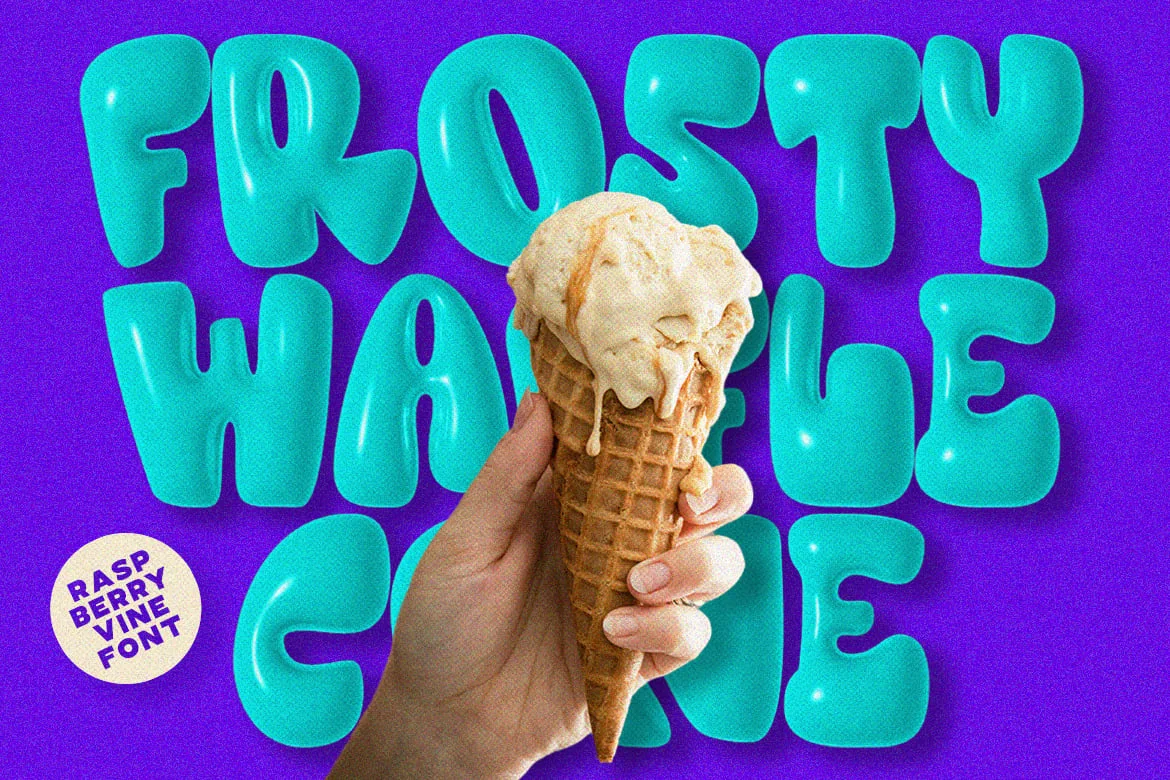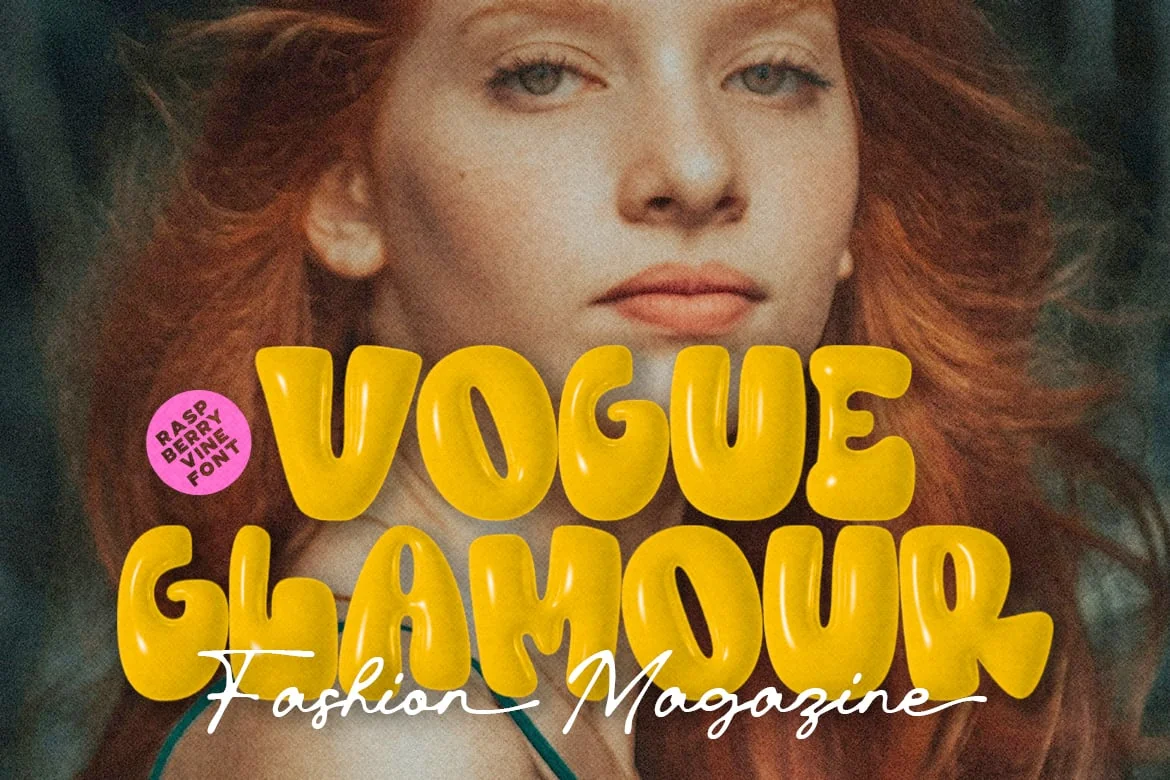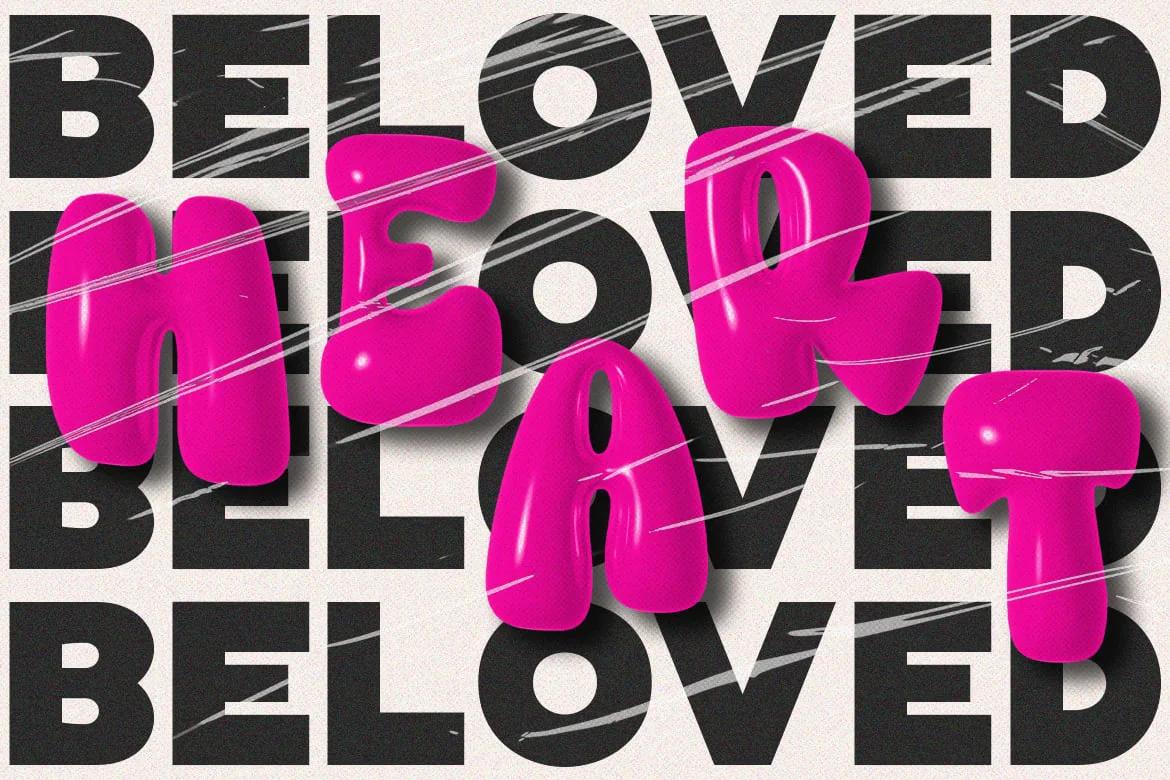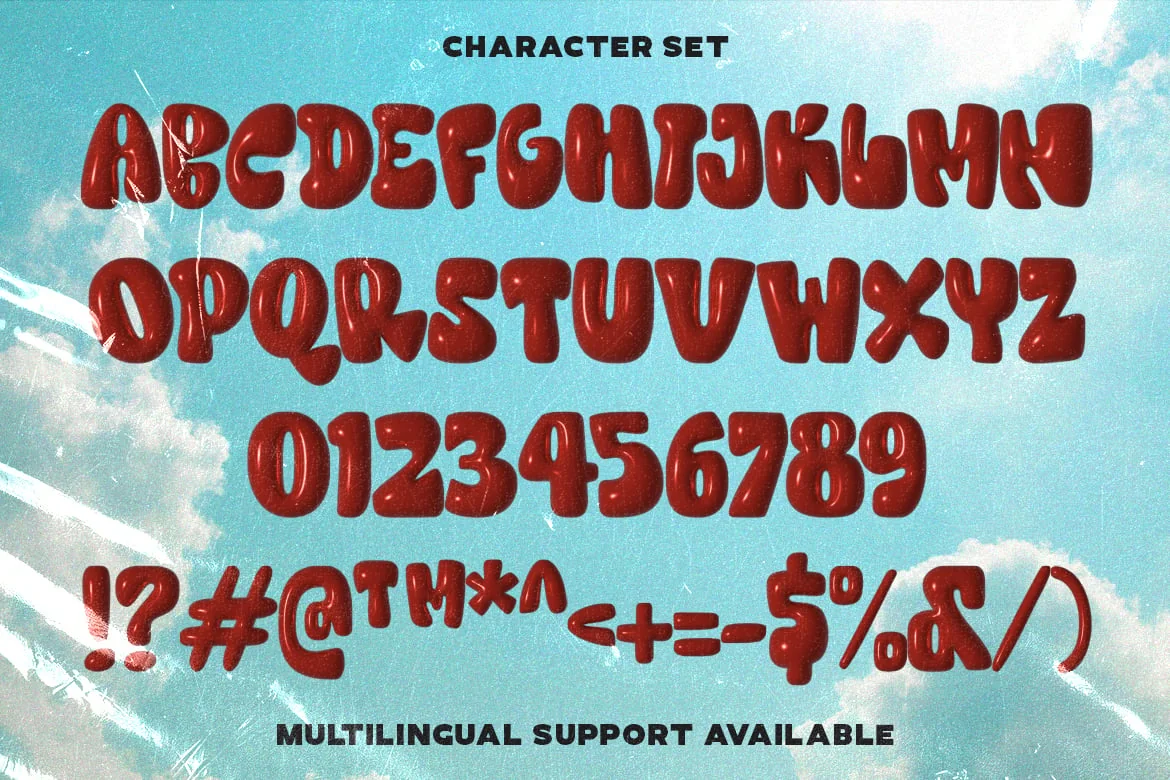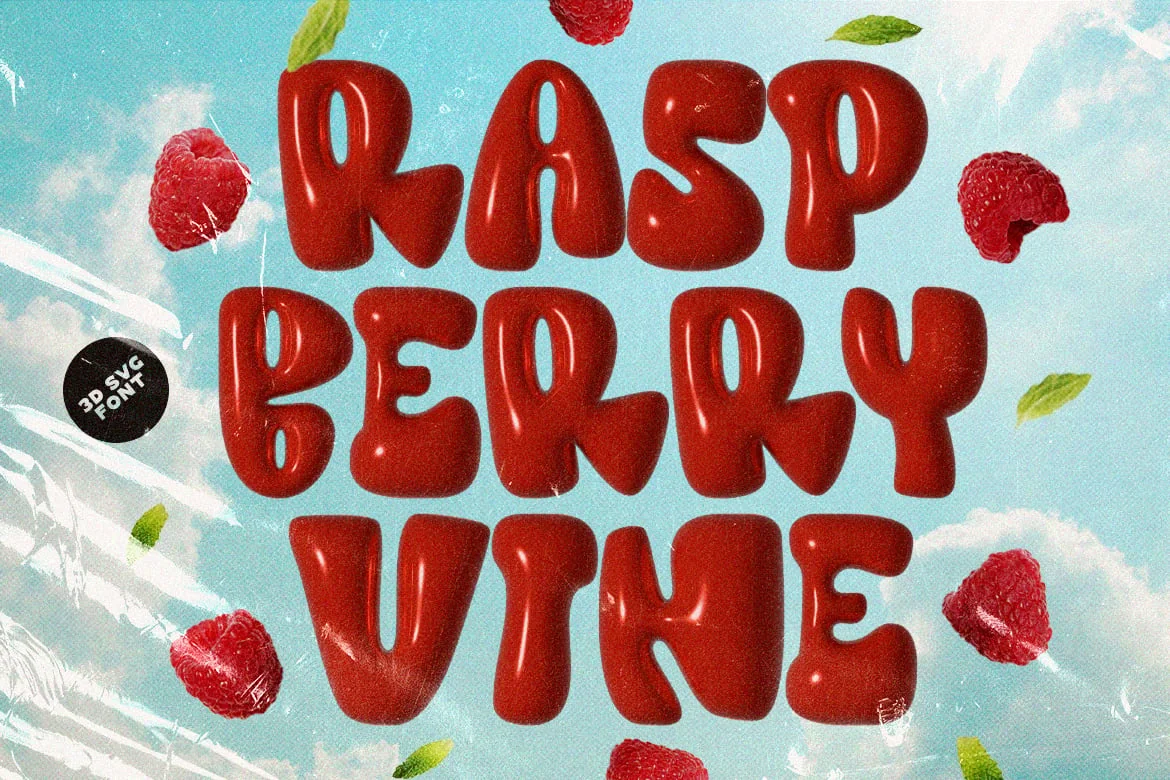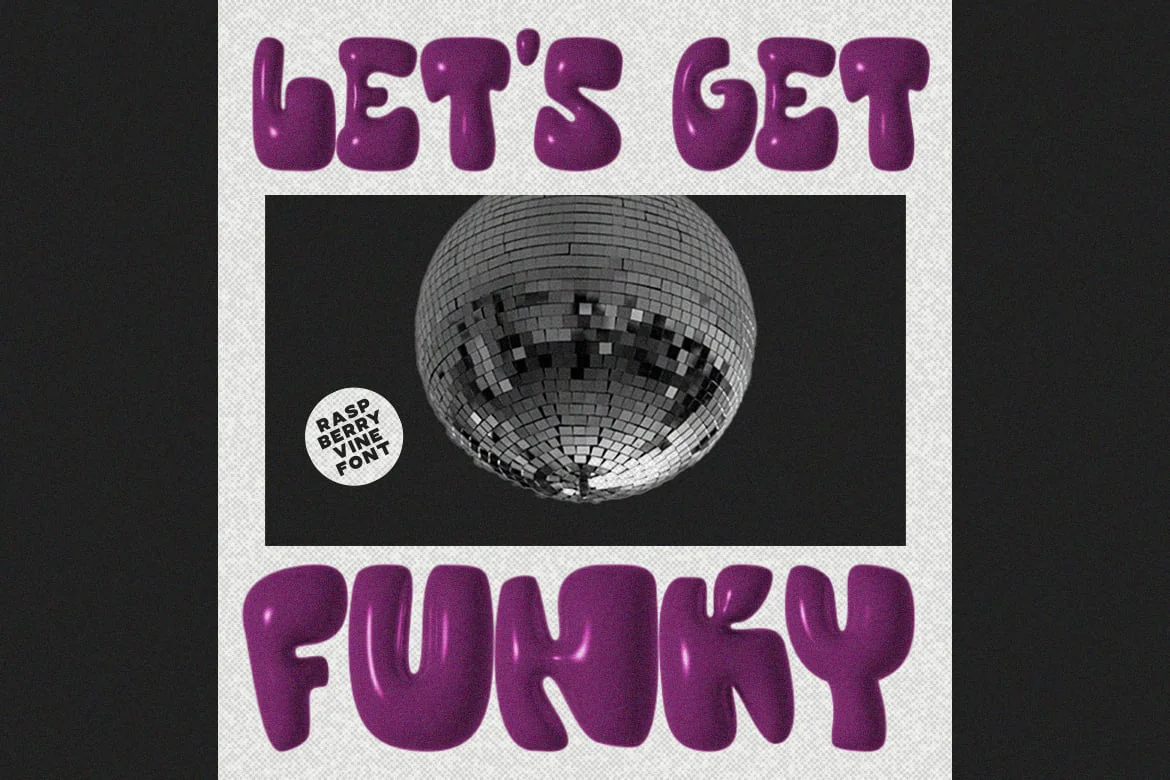
Raspberry Vine – 3D SVG Font
Raspberry Vine is a chubby, groovy 3D SVG font. With its bold style, it adds an energetic touch to any design. The regular version is also available for simpler designs that still want to stand out. Perfect for eye-catching posters, creative branding, or social media posts. Experience the delightful design with Raspberry Vine 🙂